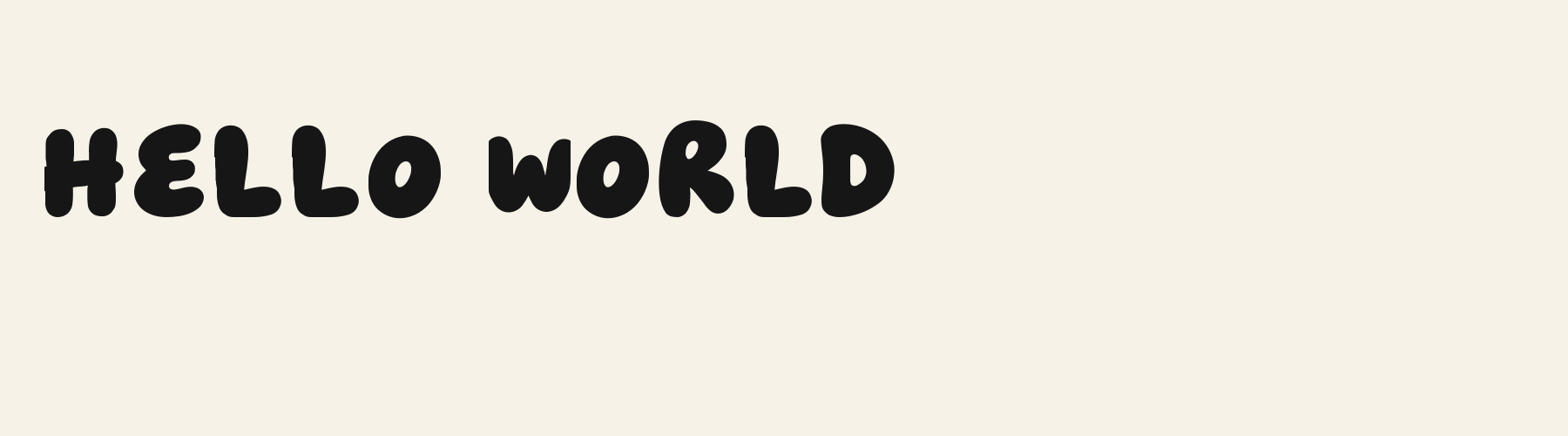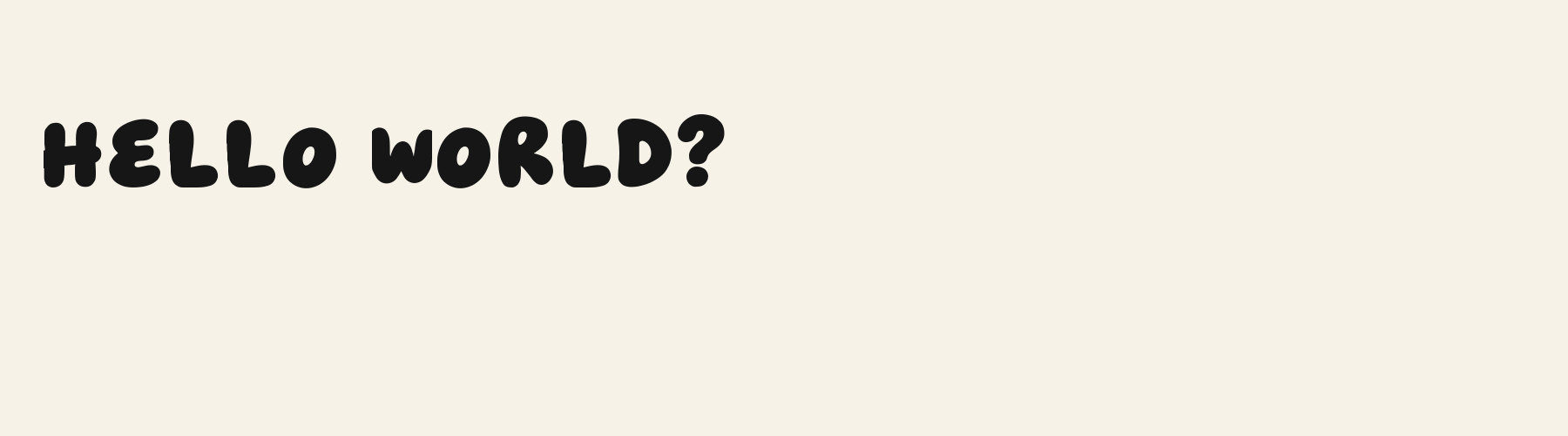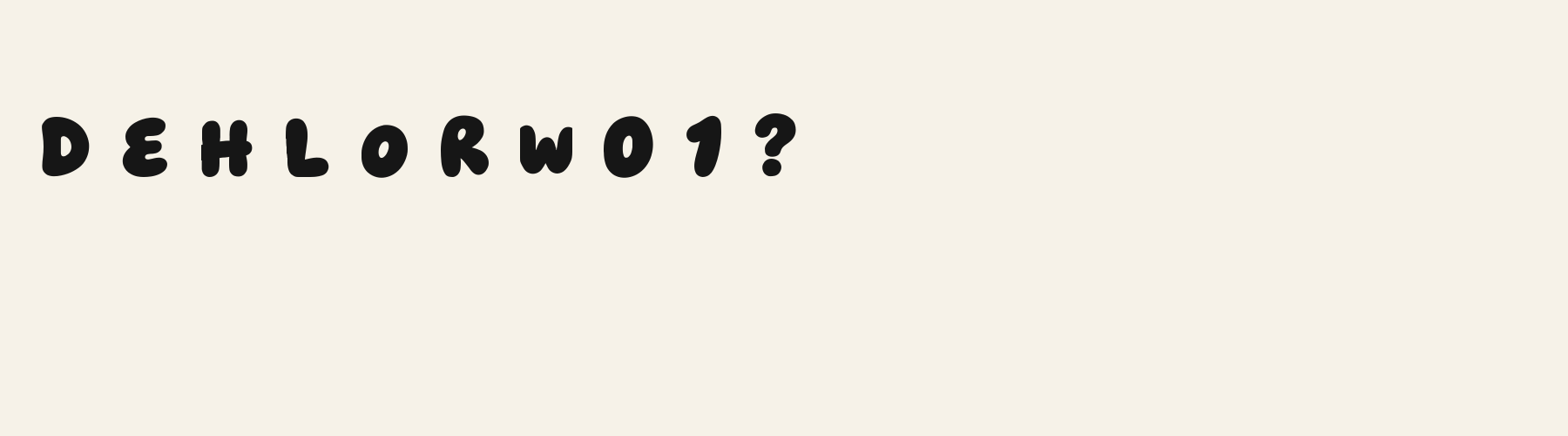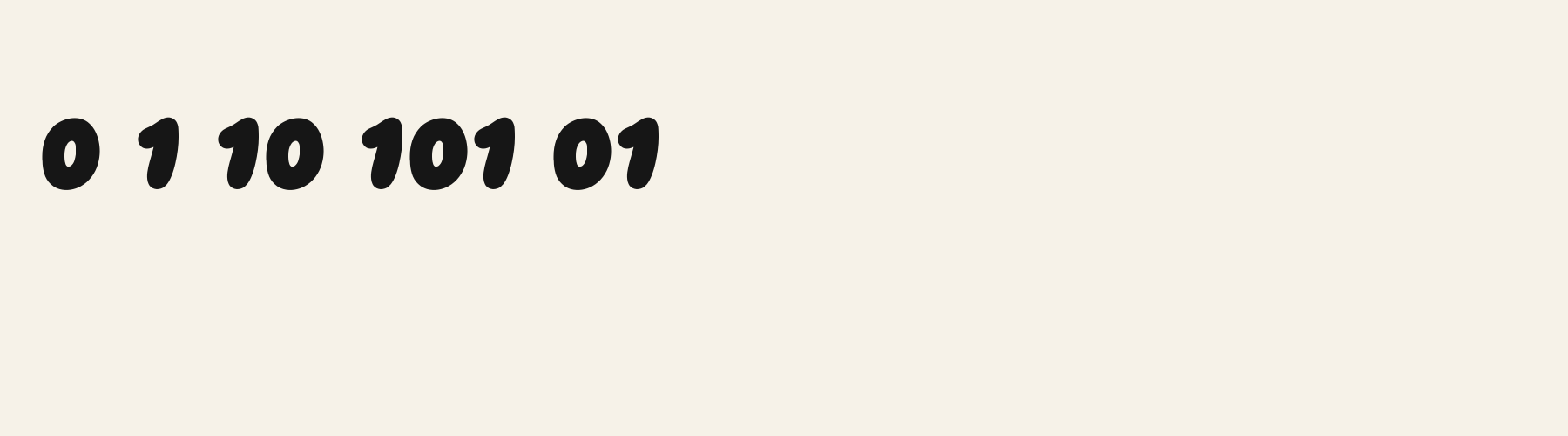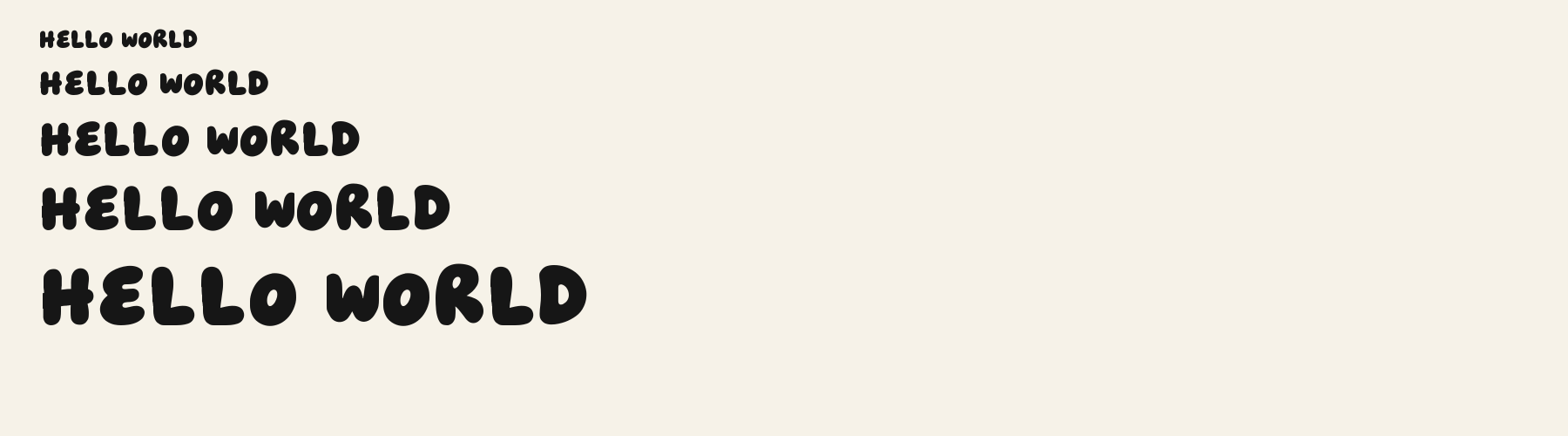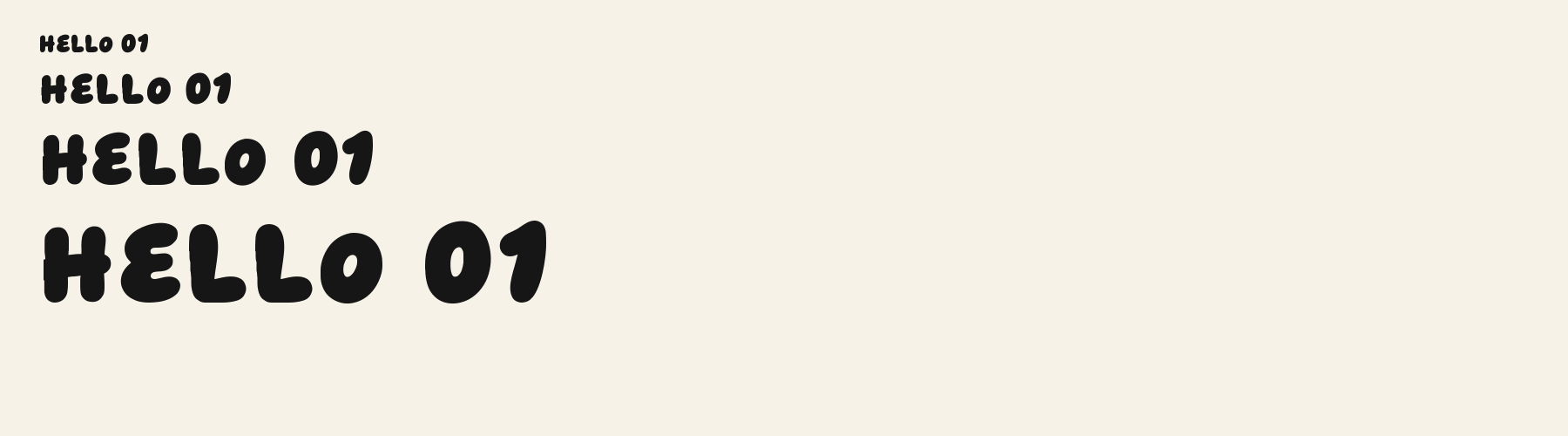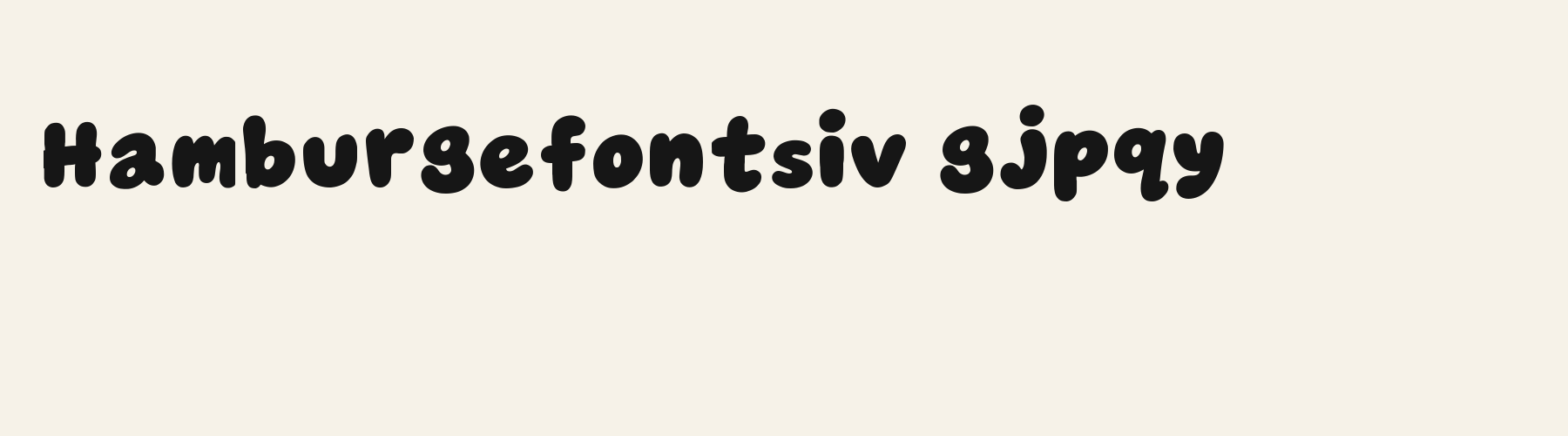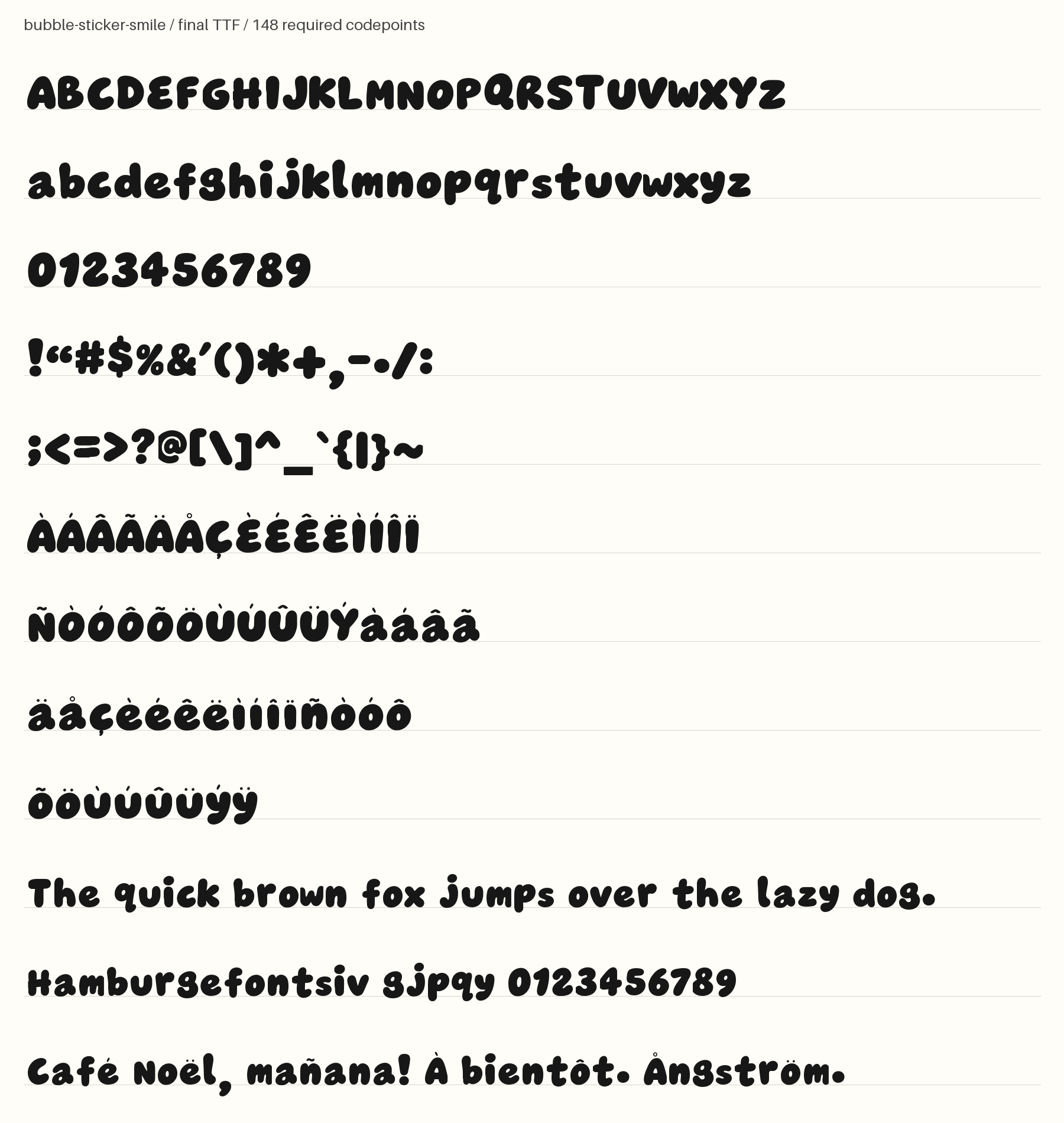
Cute Storybook Round
DisplayCute Storybook Round
1 style · 148 glyphs
Display · 1 style · 148 glyphs · Version 0.1.1
Bubble Sticker Smile is a funny captions, kids’ stickers and informal birthday graphics. bold rounded strokes, oversize bowls and deliberately jaunty but readable proportions. Best for funny captions, kids’ stickers and informal birthday graphics.
Includes all 95 printable Basic Latin characters and 148 glyphs in total.
Verified language coverage: English (Basic Latin)